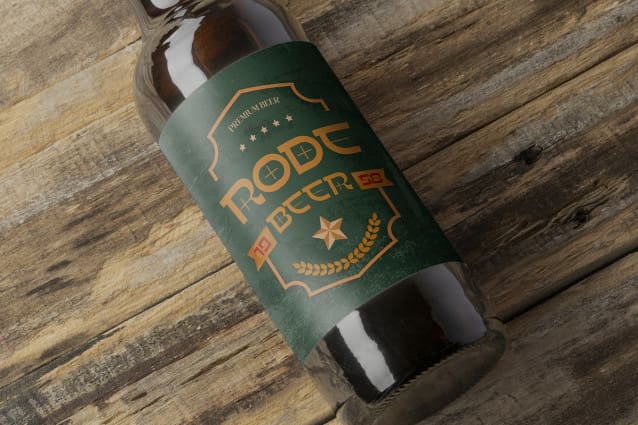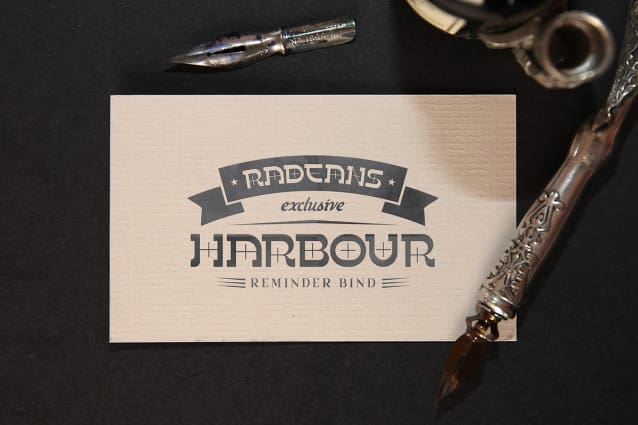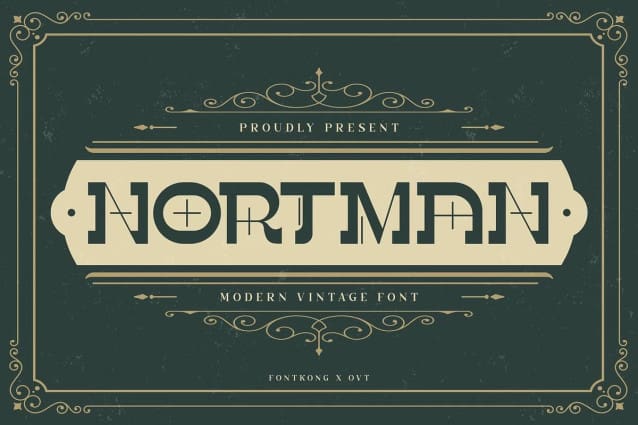
Nortman Font
Nortman Font, a modern vintage font that beautifully blends the essence of yesteryears with contemporary design. With its timeless appeal and stylish flair, Nortman adds character and warmth to any project.
Crafted with precision and care, Nortman strikes the perfect balance between modernity and vintage charm. Whether you’re creating branding materials, posters, or editorial layouts, this font evokes a sense of nostalgia while maintaining a fresh and modern aesthetic.
Featuring a versatile character set, Nortman offers flexibility and adaptability for a variety of creative endeavors. Its clean lines and classic forms ensure readability and visual appeal across different applications, while its vintage-inspired details add a touch of authenticity and character.
Experience the beauty of blending modernity with vintage charm with Nortman Font.